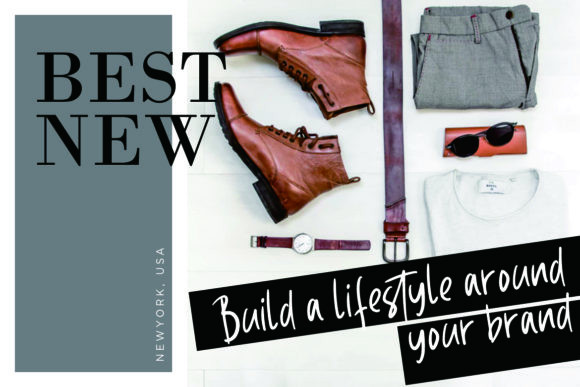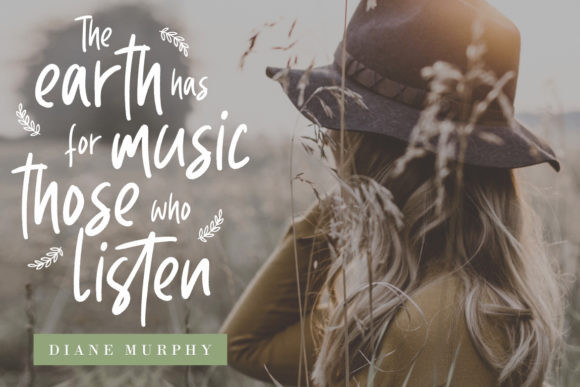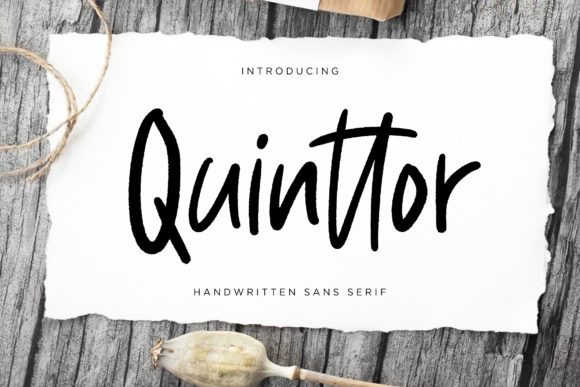
Quinttor Font
Quinttor is a hand-lettered condensed sans serif font with a brush style, creating an especially rough style. Get inspired by its modern charm!